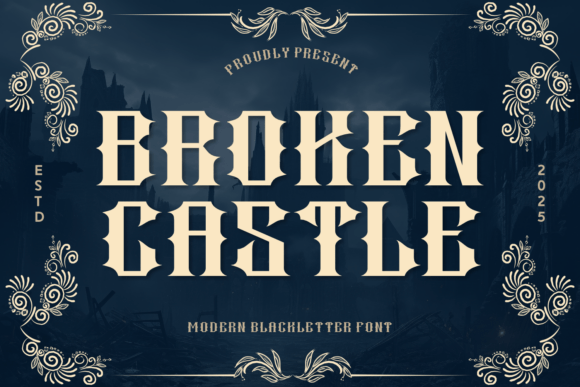
Broken Castle: A Modern Blackletter Font Rooted in Dark Fantasy and Medieval Lore
Fonts are more than just tools for communication—they are visual storytellers. In the realm of typography, Broken Castle stands out as a unique and compelling example of how typefaces can evoke deep emotions and rich imagery. Inspired by ancient ruins and dark fantasy, this modern blackletter font blends historical aesthetics with contemporary design to create something both dramatic and versatile. Whether you're designing a role-playing game (RPG) title, a fantasy book cover, or a vintage-style banner, Broken Castle offers a distinctive look that bridges the gap between tradition and innovation.
What is the Broken Castle Font?
The Broken Castle font is a stylized blackletter typeface designed to capture the essence of medieval architecture and gothic storytelling. It features tall, elongated characters with sharp terminals and vintage curves that give it an air of mystery and grandeur. Unlike many traditional blackletter fonts, which can be difficult to read at smaller sizes, Broken Castle maintains legibility while still delivering a strong visual impact. This makes it ideal for use in various design contexts where readability and atmosphere must coexist.
Blackletter fonts, also known as Gothic or Textura fonts, originated in the Middle Ages and were commonly used in handwritten manuscripts before the invention of the printing press. These fonts are characterized by their dense, ornate letterforms and have been associated with everything from scholarly texts to horror movie posters. Broken Castle reimagines this classic style with a modern twist, making it accessible and effective for today's designers.
Key Features of the Broken Castle Font
Why Use the Broken Castle Font?
Typography plays a crucial role in setting the tone of any project. When it comes to creating visuals that demand attention and convey a sense of timelessness, the Broken Castle font is an excellent choice. Its design elements—sharp edges, high contrast, and gothic flair—make it particularly suited for themes centered around history, fantasy, and adventure.
One of the most compelling reasons to use Broken Castle is its ability to transport viewers into another world. For instance, if you're working on a fantasy book cover, the right font can make all the difference in capturing the reader’s imagination. Broken Castle does precisely that, offering a visual narrative that complements the content without overwhelming it.
Practical Applications of Broken Castle
The versatility of Broken Castle means it can be applied across a wide range of industries and creative fields. Here are some common uses:
1. RPG Titles: Role-playing games often rely on immersive worlds and epic narratives. Using a font like Broken Castle can enhance the experience by visually reinforcing the medieval or fantastical setting.
2. Book Covers: Authors of fantasy, horror, and historical fiction can benefit from using Broken Castle to create covers that stand out and reflect the genre’s aesthetic.
3. Castle-Themed Branding: Businesses or events centered around medieval themes—such as taverns, gaming conventions, or themed restaurants—can use this font to build a cohesive brand identity.
4. Vintage Banners: From event signage to promotional materials, Broken Castle adds a touch of nostalgia and intrigue, making it perfect for vintage-inspired designs.
How Does Broken Castle Fit Into Modern Design?
In today’s fast-paced digital landscape, designers are constantly looking for ways to stand out. While many trends lean toward minimalism and clean typography, there is still a place for bold, expressive fonts like Broken Castle. It allows creators to infuse personality and narrative into their work, whether they’re designing for print or screen.
Modern audiences are drawn to content that feels authentic and evocative. Broken Castle taps into that desire by providing a visual link to the past while maintaining the clarity needed for today’s media. For example, a small business owner launching a medieval-themed café might use this font in their logo and menu design to create a consistent and immersive brand experience.
Bridging Tradition and Innovation
Designers who appreciate the craftsmanship of old-world typography will find Broken Castle to be a refreshing alternative to overused sans-serif or serif fonts. At the same time, its modern enhancements make it suitable for digital platforms such as websites, mobile apps, and social media graphics. This dual nature ensures that the font remains relevant and functional in both traditional and contemporary settings.
Additionally, the font’s adaptability allows it to be paired with other styles effectively. A designer might combine it with a simpler, more readable font for body text to maintain hierarchy and usability. This approach not only enhances the overall design but also demonstrates an understanding of typographic balance and purpose.